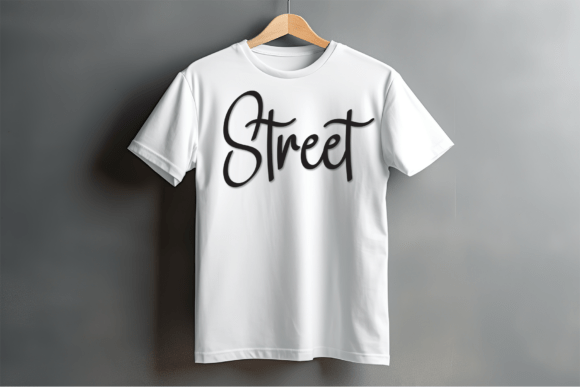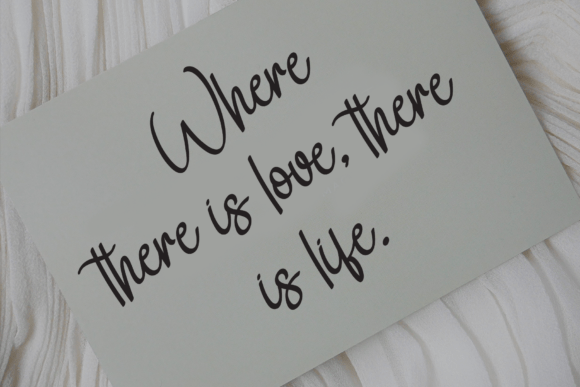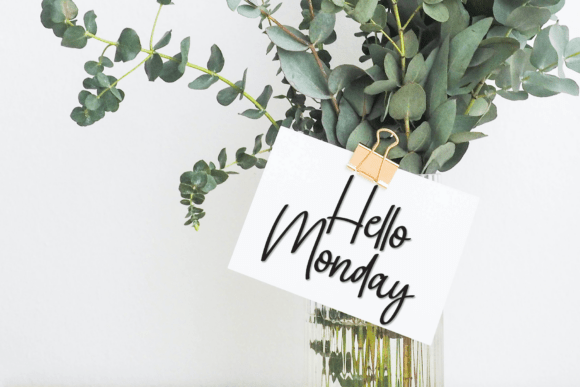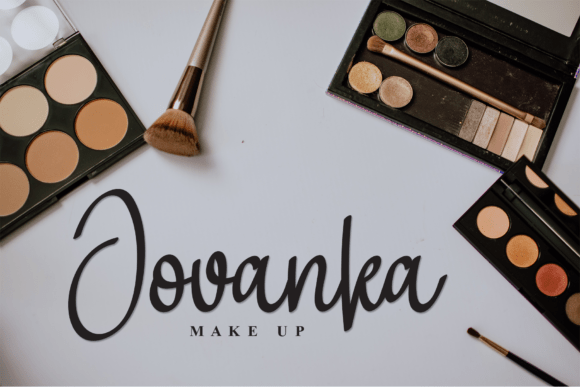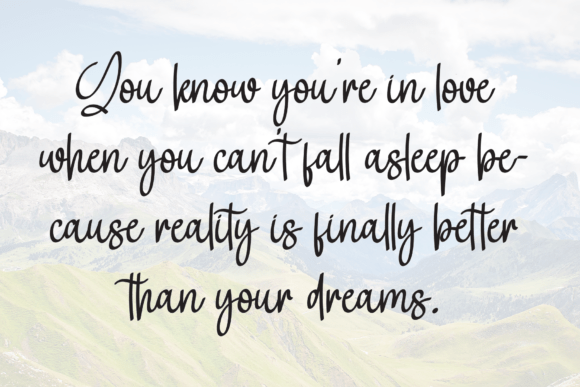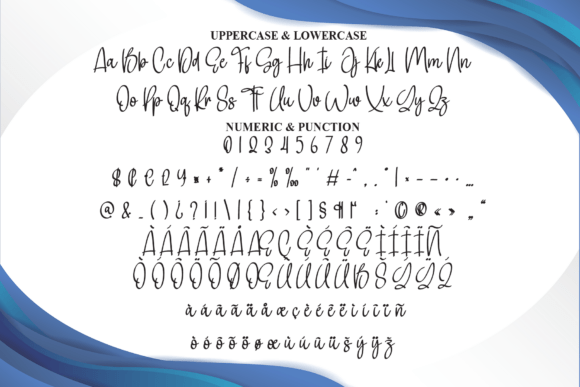
Unlock Your Creative Potential with the Ultimate Backgrounds Font
Have you ever found yourself stuck in a creative rut, searching for the perfect font to bring your design to life? You’re not alone. We’ve all been there, pouring over endless options, trying to find that elusive combination of style and functionality. But what if you could have it all – a font that’s not only visually stunning but also incredibly versatile?
Introducing Backgrounds Font, the ultimate creative solution for designers. This exceptional font is designed to elevate your projects to the next level, whether you’re working on wall displays, wedding invitations, social media logos, or product packaging. With its sleek, modern design and wide range of applications, Backgrounds Font is an essential tool for any designer looking to take their work to new heights.
Backgrounds Font Key Features
- Font Family: Backgrounds Font is a unique, high-quality font family designed specifically for backgrounds and textures.
- Unique Characteristics: Backgrounds Font features intricate, hand-drawn designs with subtle texture and patterns, ideal for adding depth and visual interest to designs.
Backgrounds Font Review
Overall, I was excited to dive into the Backgrounds Font and see what it had to offer. I’ve used a lot of fonts in my design career, and I was hoping this one would bring something new and interesting to the table. Here are my thoughts.
- Unique aesthetic: The Backgrounds Font has a distinctive look that’s hard to find elsewhere. It’s perfect for designers who want to add a bit of personality to their work.
- High-quality images: The font is built from high-resolution images, which means it looks crisp and clear even at larger sizes.
- Limited character set: While the font is high-quality, it’s not as comprehensive as some other fonts on the market. This may be a problem for designers who need a wide range of characters.
- No customization options: The font is what it is – you can’t customize it to fit your specific needs.
Overall, I think the Backgrounds Font is a great addition to any designer’s toolkit. While it’s not perfect, its unique aesthetic and high-quality images make it a worthwhile investment for designers who want to add a bit of flair to their work.
Backgrounds Font is a versatile tool that can be used in various design contexts. Here are some tips and common use cases:
- Use Backgrounds Font to create visually appealing backgrounds for presentations, social media graphics, and websites.
- Experiment with different textures, patterns, and colors to add depth and interest to your designs.